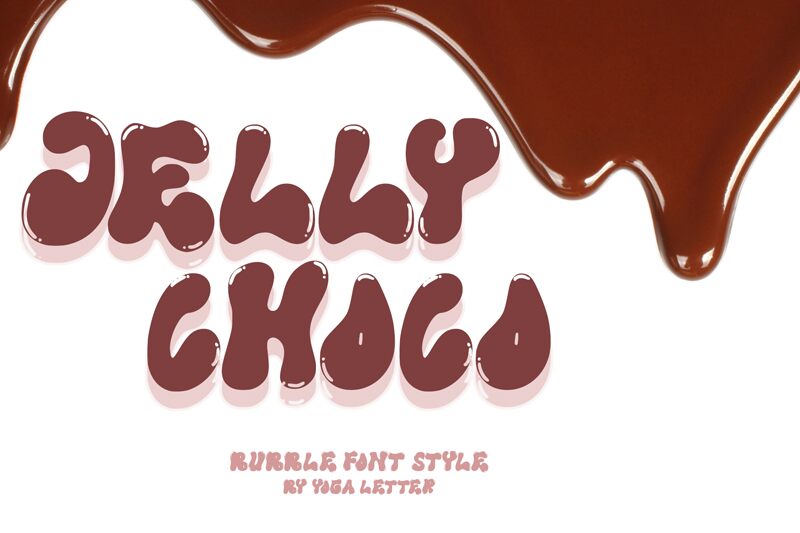
Jelly Choco
Jelly Choco font, designed by Yoga Letter, exudes a playful charm that immediately captures attention. Its bold, groovy style features exaggerated curves and whimsical shapes that evoke a sense of joy and nostalgia. The lightness of the characters enhances its overall appeal, making it approachable and fun.
This font brilliantly caters to designs aiming for a vibrant, youthful vibe—perfect for branding in the food industry, event posters, children's products, or any creative project seeking to infuse personality and energy. With its distinctive character design and eye-catching presence, Jelly Choco stands out as an ideal choice for both print and digital applications where creativity knows no bounds.